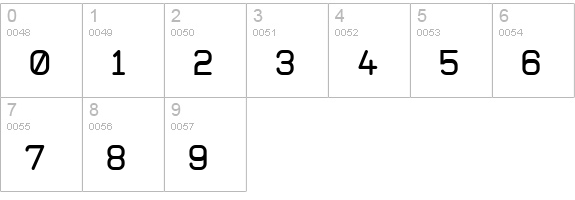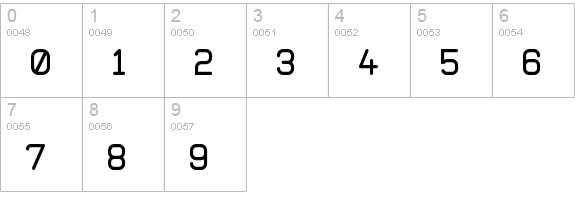
Brave New Era G98 Font Details
Brave New Era G98 font is a modern and stylish typeface that exudes confidence and innovation. With its sleek lines and sharp angles, this font is perfect for making a bold statement in any design project. The geometric shapes and clean design of Brave New Era G98 give it a futuristic feel that is both eye-catching and impactful. This versatile font is suitable for a wide range of design applications, from branding and advertising to web design and social media graphics. Whether you're looking to create a sleek and contemporary look or add a touch of sophistication to your project, Brave New Era G98 has you covered. Best of all, Brave New Era G98 font is completely free to download at FontsMarket.com. So you can add this stylish and modern font to your collection without breaking the bank. Don't miss out on the opportunity to elevate your designs with Brave New Era G98 font today!